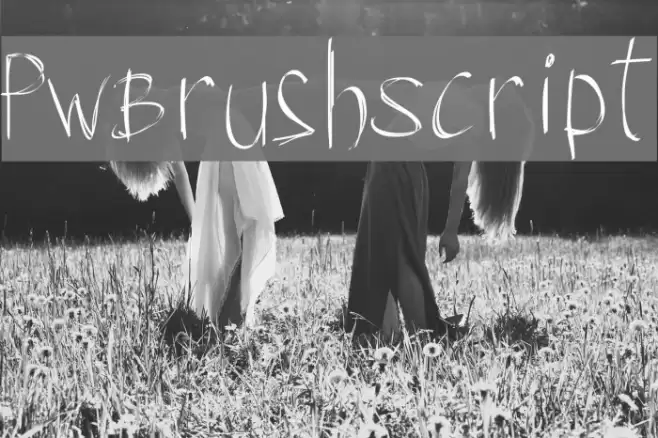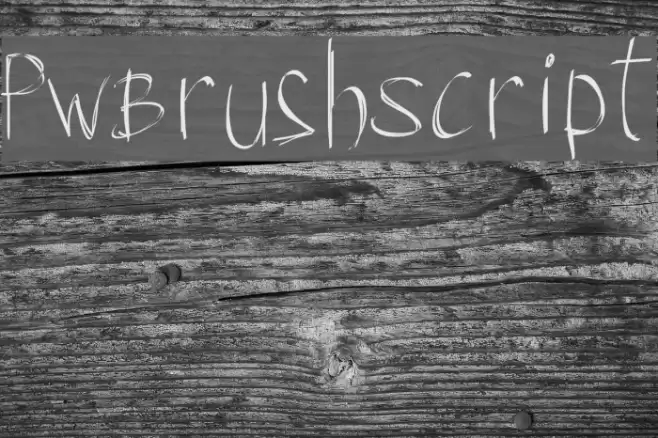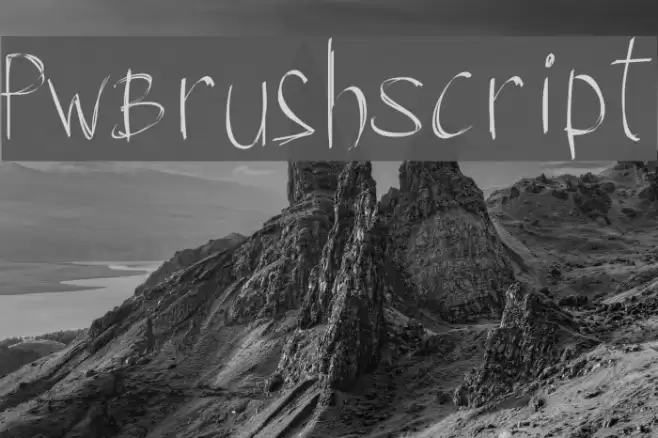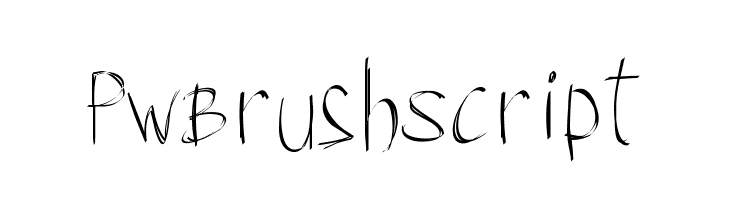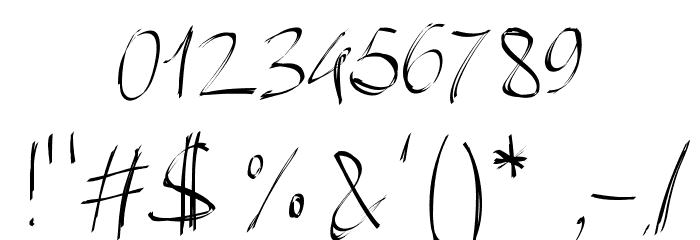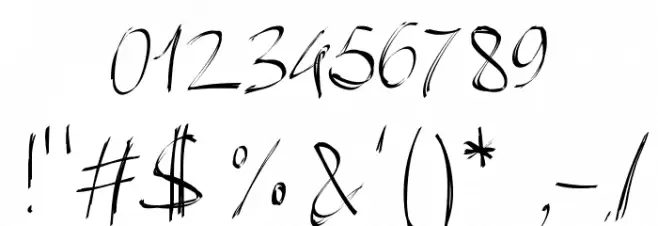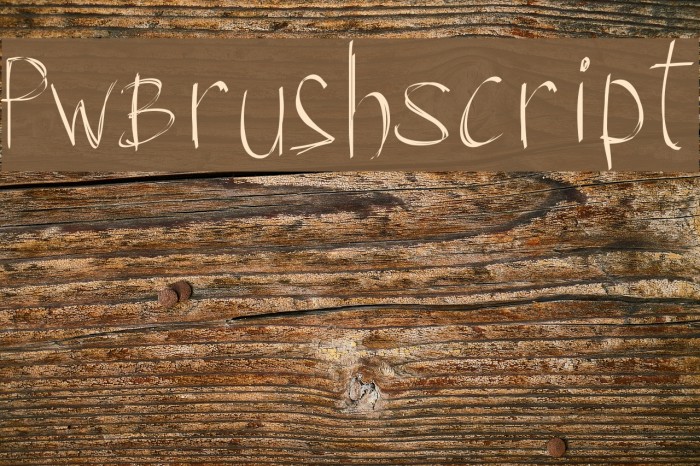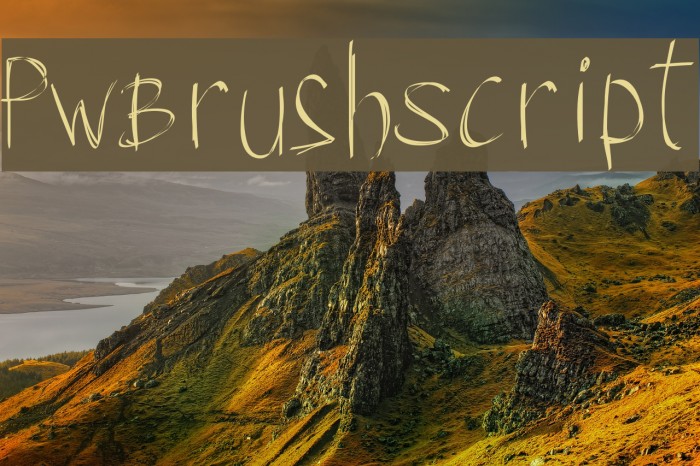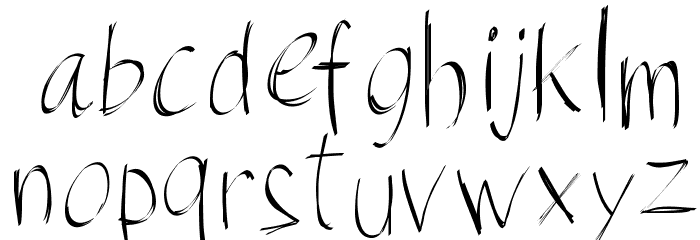
PWBrushScript Font
PWBrushScript Description
This font exudes a dynamic and energetic feel, characterized by its brush-like strokes that give it a hand-drawn appearance. The letters are slightly irregular, adding to the casual and artistic vibe. The uppercase and lowercase letters maintain a consistent style, with varying stroke thickness that mimics the natural flow of a brush. Numbers and special characters follow the same aesthetic, ensuring a cohesive look across all text elements. This font is perfect for projects that require a personal touch or an artistic flair.
A dynamic, brush-style font with an artistic and hand-drawn appearance from Uncategorized fonts.
- Proposed Projects: Ideal for art projects, creative branding, invitations, posters, and social media graphics.
- Overall Style: Artistic